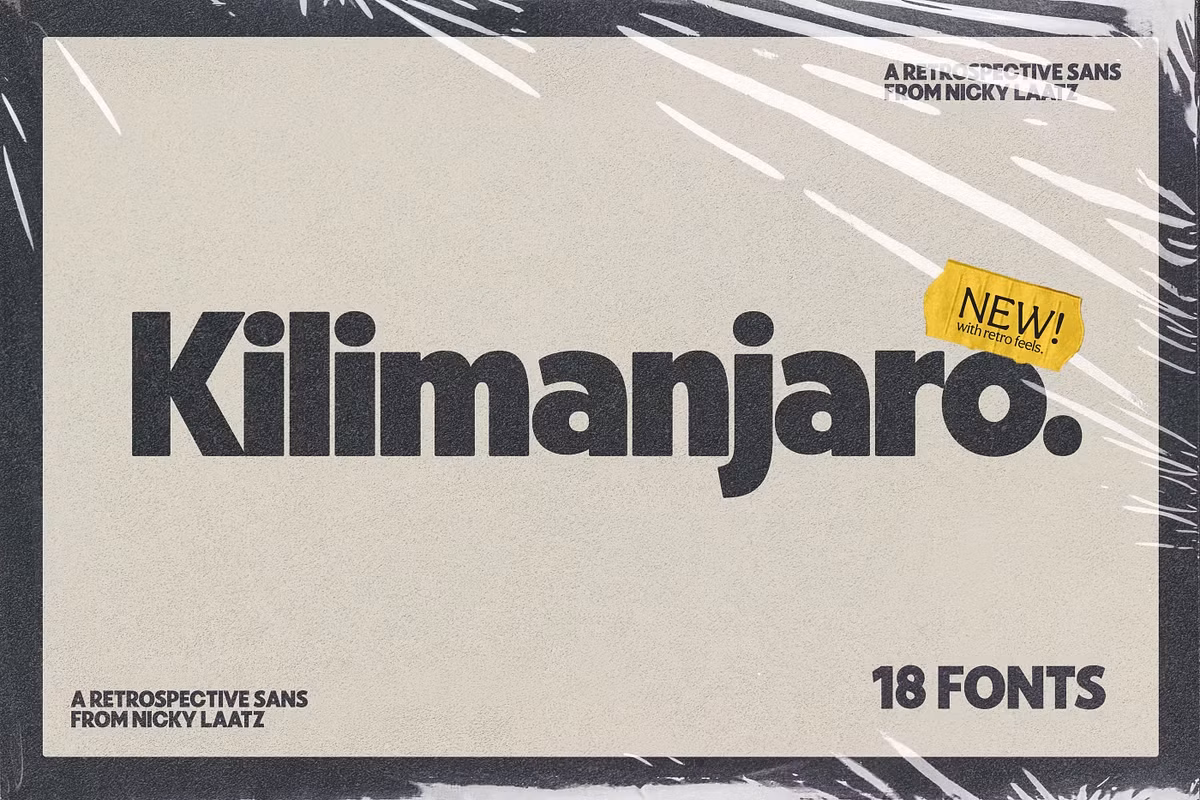
Kilimanjaro Sans (36 Fonts) Free Download is an extensive and versatile sans-serif font family that includes 36 different weights and styles, giving you a broad range of options for every design need. With its clean, modern aesthetic and strong geometric structure, Kilimanjaro Sans is perfect for everything from web design, branding, and advertising, to editorial layouts, corporate identity, and more.
Whether you're designing logos, headings, or body text, this font family offers exceptional readability and flexibility, allowing you to create consistent and professional typography across your designs.